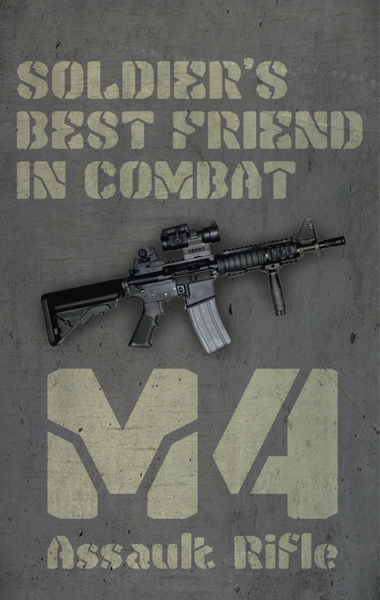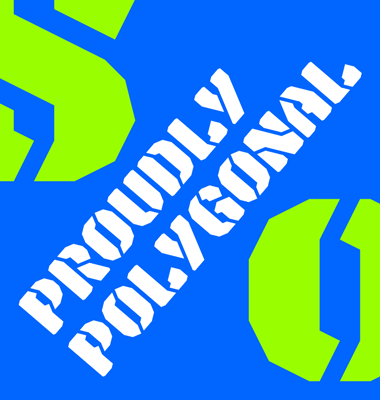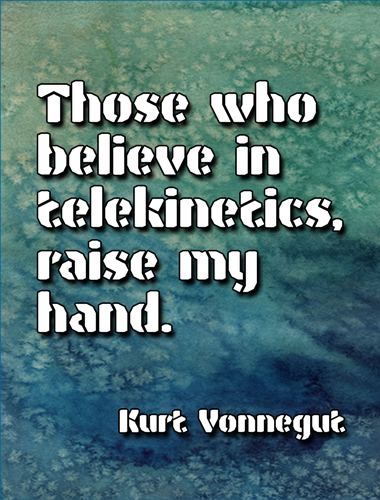
Beautiful and so accurate!
10/10!
Great Stencil. the cuts are so brillant
Simply gorgeous.
Beautiful rugged look. The S is amazing (how do you do that!) I can never get those to work >.
I'm in love with it (specially the LC)! Wow, it was worth waiting.
You just raised my hand to vote for this one! 10/10
This has a 'soft' kind of ruggedness. 10/10
It was my first competition, and I worked hard for three weeks. I even took some vacation. Having seen the works released earlier, including the two other winners, I realized the bar was raised high, the competition was strong. I only wanted to participate and compete with a reasonably good new font. I wasn't sure about this font until the very last day, when I finally solved some problems with important glyphs. As a consequence, I had to redesign the whole set, but eventually all the pieces have fallen into place.
@Frodo7: I missed my chance to comment on Thorin before the competition results, but I want to tell you that as soon as I saw your work here, I knew it was a winner. Amongst all the other great work, it’s my top choice. I can only echo now Mr. Larabie – this is my favorite out of all 70+ entries. Congratulations!
I love it. It's soft, but rugged. I have tried making a stencil font, but it totally failed. Your fonts are great!